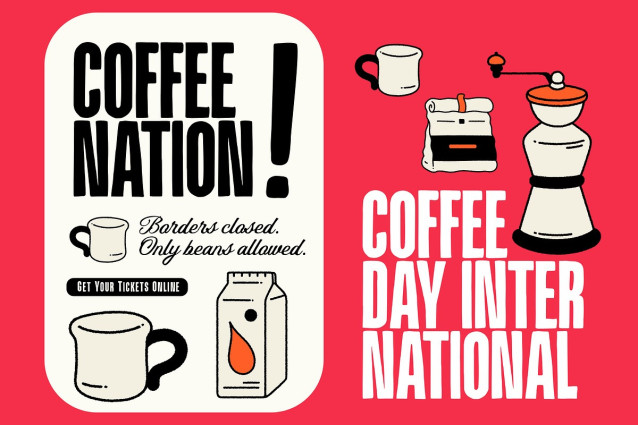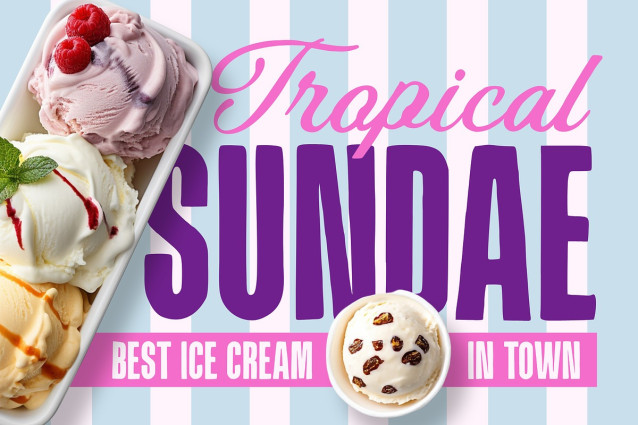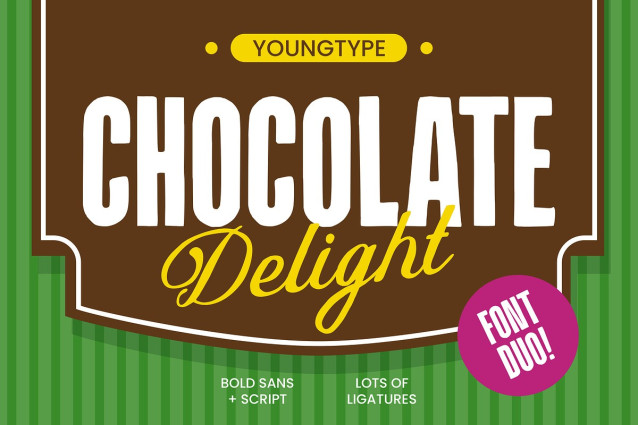
Chocolate Delight Font Duo
Chocolate Delight Font Duo: is a bold and playful typeface that combines a strong sans-serif style with a soft stroke. This font duo combines the strong, modern sans-serif of “CHOCOLATE” with the more delicate handwritten stroke of “Delight,” creating a charming contrast. The use of double strokes gives the letters a unique character, highlighting a fluid and lively appearance. The bright yellow accents and brown background evoke a warm, inviting, and playful feel, perfect for food-related brands, packaging, or any project that wants to convey a sense of indulgence and playfulness.